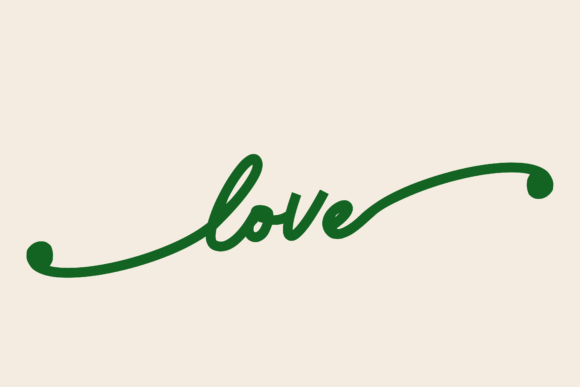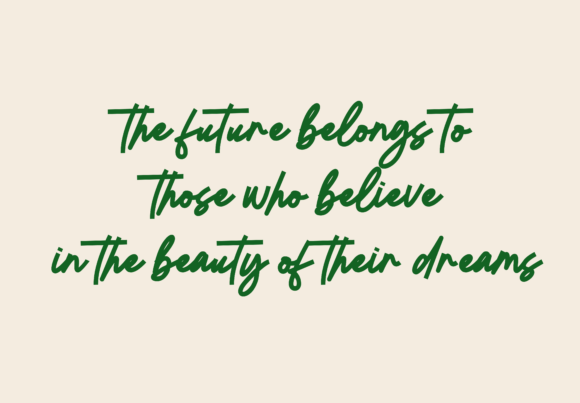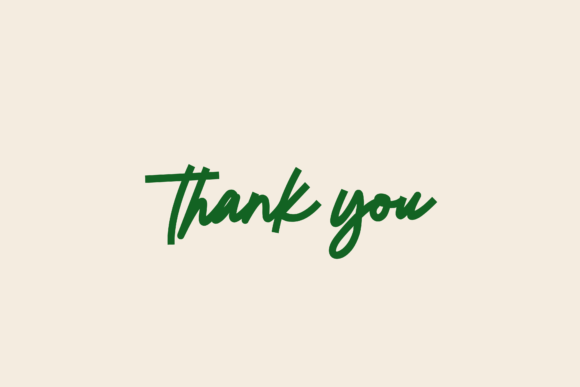
Introduction to Losangels Font
Imagine you’re in the midst of a creative project, pouring your heart and soul into every detail. You’re searching for the perfect font to elevate your design, to make it truly stand out from the crowd. That’s when you stumble upon the ‘Losangels Font’, a game-changing typeface that will transport your ideas to new heights.
With its unique blend of elegance and rustic flair, ‘Losangels Font’ is the ultimate design resource for any creative endeavor. Whether you’re crafting a wedding invitation, a heartfelt thank-you note, or a business logo, this sophisticated font is sure to captivate your audience. And with PUA encoding, you’ll have endless possibilities for customization, making it a valuable asset for any designer.
As a high-quality script typeface, ‘Losangels Font’ brings a touch of manual penmanship to your work, making every word feel like a carefully choreographed dance. And with a transparent background, you can seamlessly integrate it into your design, creating a truly cohesive look. So why settle for ordinary when you can have extraordinary? Download ‘Losangels Font’ today and unlock a world of creative possibilities.
Key Features of Losangels Font
- High-quality design resource for creative projects, offering a unique and stylish look.
- Transparent background, allowing for seamless integration with any design.
- Perfect for use in logos, branding materials, and other visual identity elements.
- Unique characteristics: elegant script, modern flair, and sophisticated feel.
- Designed to add a touch of sophistication and creativity to any design project.
Honest Review: Losangels Font
I recently stumbled upon the Losangels Font, and I’m excited to share my thoughts on this design resource. As a designer, I’m always on the lookout for high-quality fonts that can elevate a creative project.
One of the standout features of the Losangels Font is its unique, modern aesthetic. The font’s clean lines and minimalist design make it perfect for a variety of projects, from logos to brochures.
- The font may not be suitable for projects that require a more traditional or formal look
- The font family is relatively small, with only a few weights and styles to choose from
Overall, I’m impressed with the Losangels Font. While it may not be perfect for every project, it’s a great addition to any designer’s toolkit. If you’re looking for a modern, high-quality font that’s easy to use, the Losangels Font is definitely worth checking out.
Tips for Getting the Most Out of Losangels Font
For a high-quality design, use the Losangels Font with a transparent background to create a stunning visual effect.
The Losangels Font is ideal for creative projects that require a unique and eye-catching design resource. It’s perfect for logos, social media graphics, and presentations.